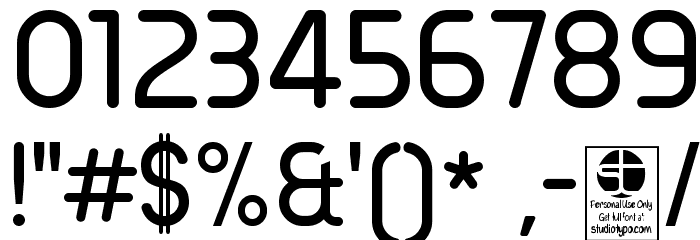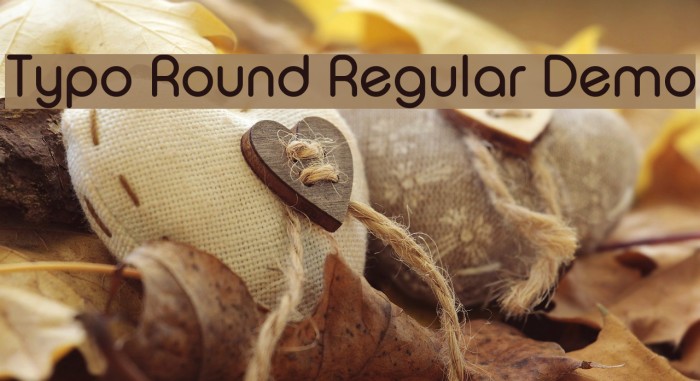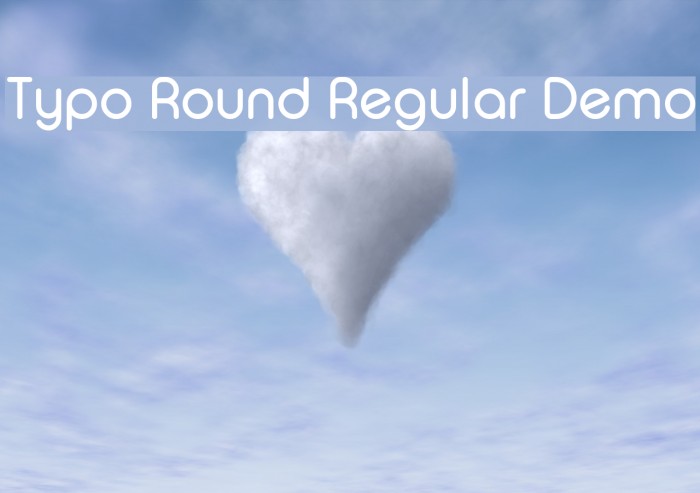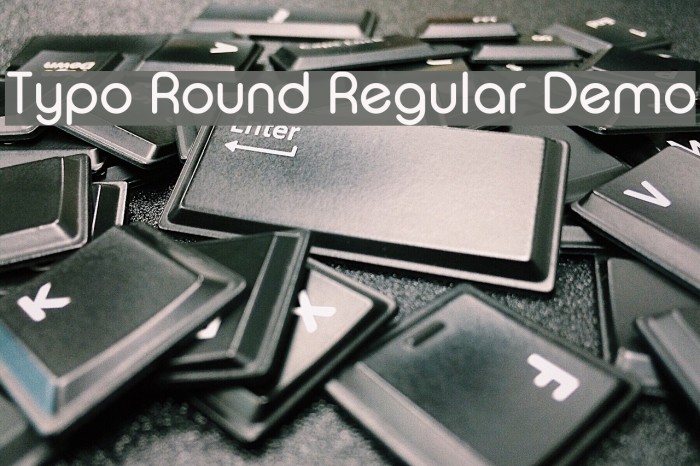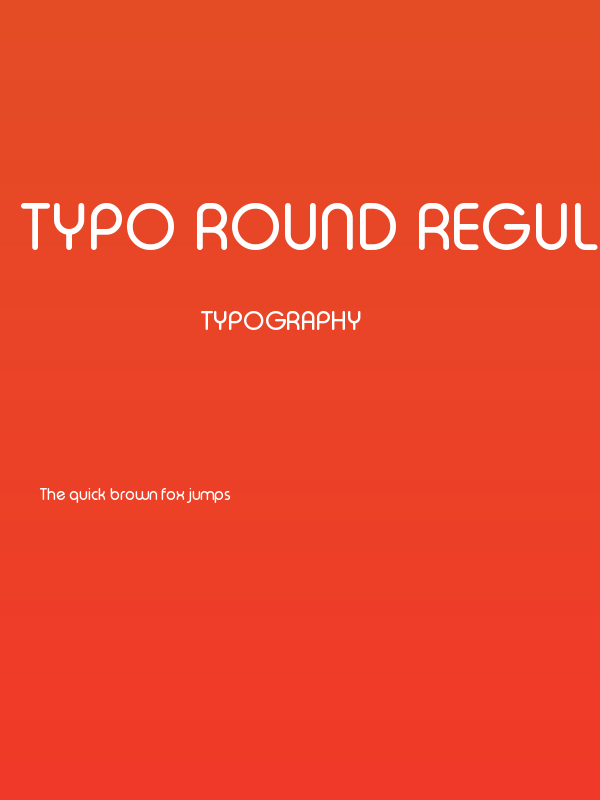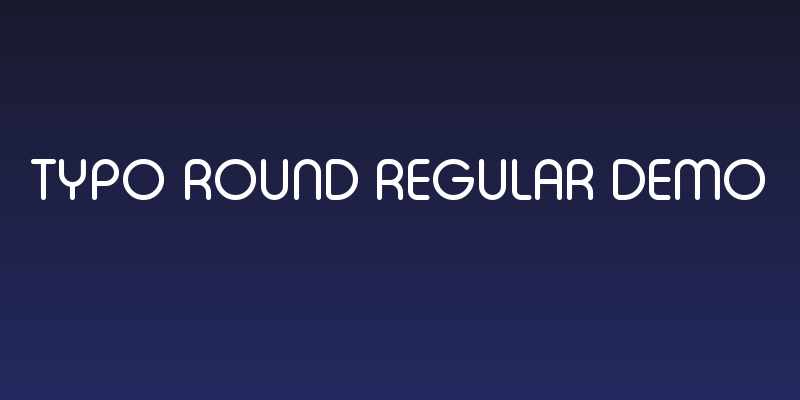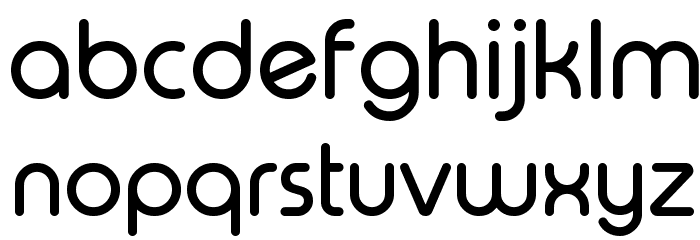
Typo Round Regular Demo Font
Typo Round Regular Demo Description
This font features a clean, rounded sans-serif style with uniform stroke widths, giving it a modern and approachable appearance. The characters are well-proportioned, with a consistent height and width that enhances readability. The rounded edges soften the overall look, making it suitable for friendly and inviting designs. The numerals and special characters maintain the same rounded aesthetic, ensuring cohesion across all text elements. This font is versatile, offering clarity and simplicity, which makes it ideal for a variety of applications.
| Proposed Projects | Ideal for branding, web design, user interfaces, and educational materials. |